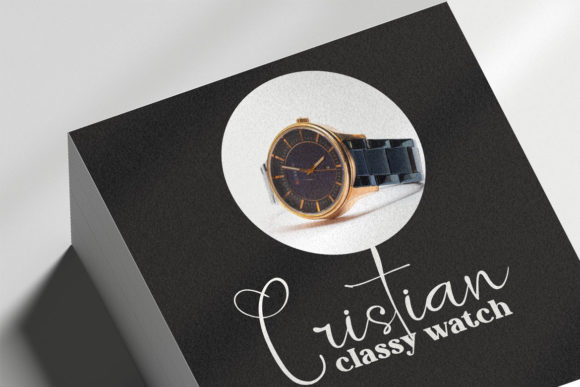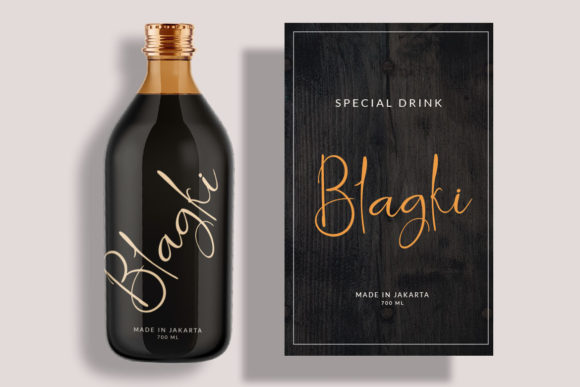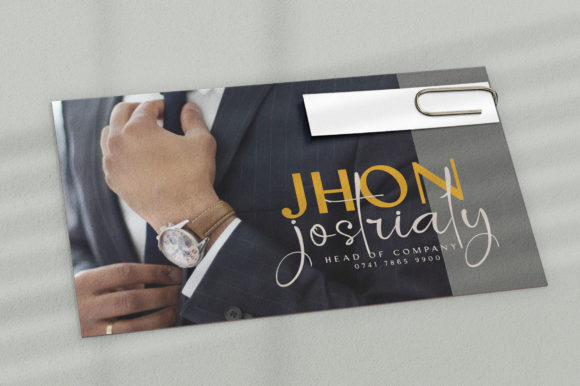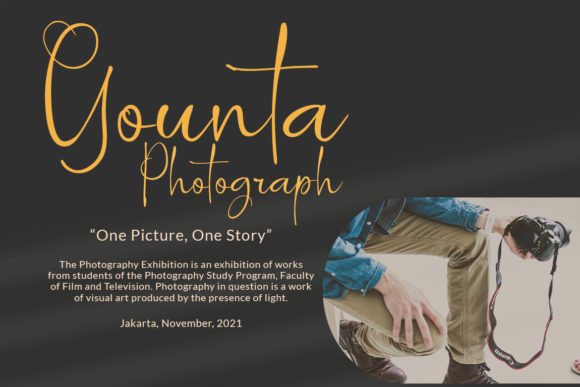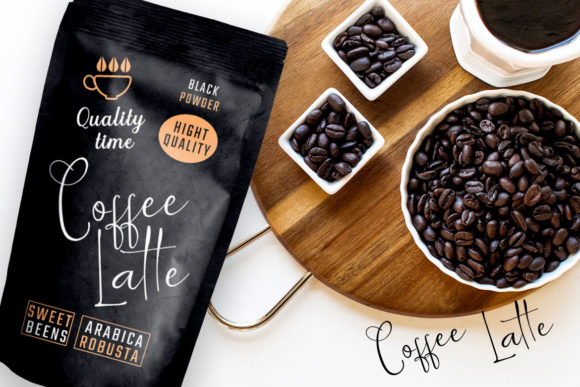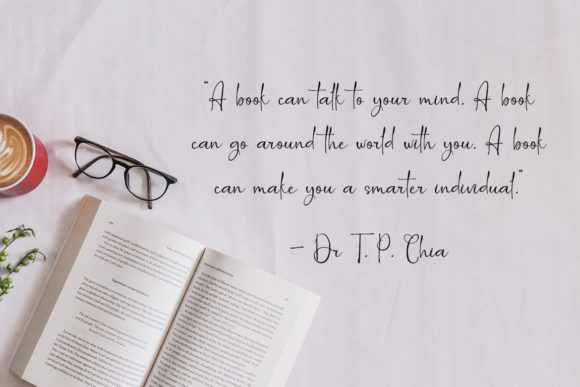
Introduction to Niwatch Font
Niwatch is an elegant and modern script font.
It features high contrast strokes and fun characters This font is good for logo designs, social media, movie titles, books covers and various other creations.
Key Features of Niwatch Font